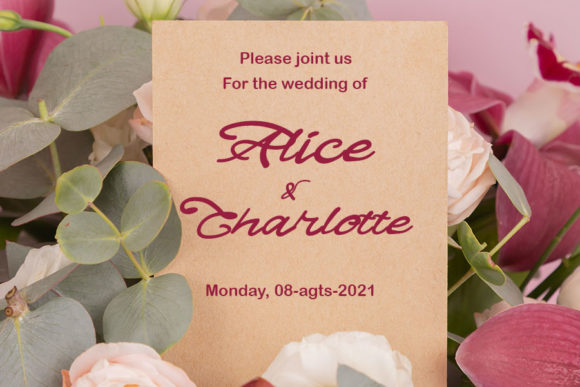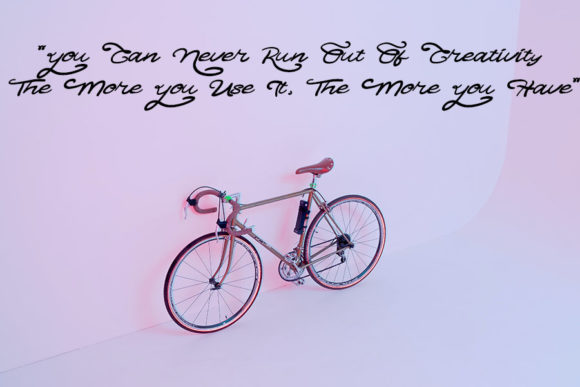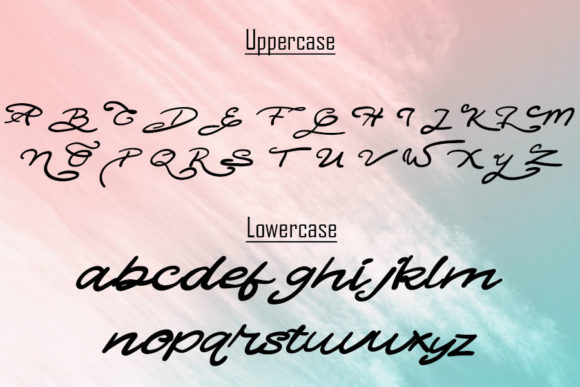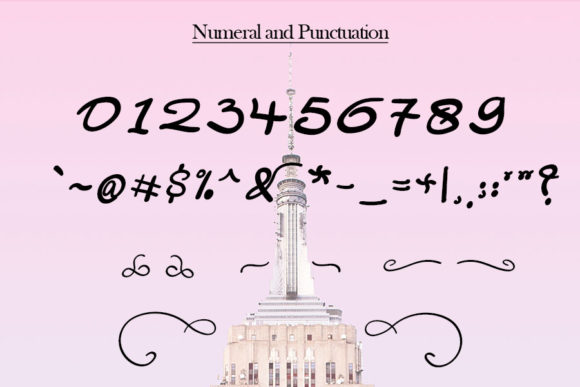
About Alice Charlotte Font
Alice Charlotte is a very unique handwritten font. Expertly designed to be a true favorite, this font has the potential to take your every creative idea to the highest level!